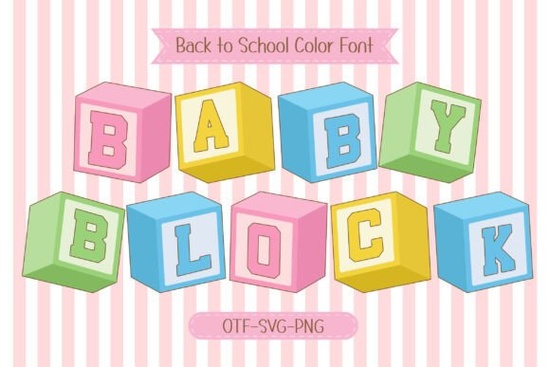
When it comes to adding a playful and adorable touch to your designs, the Baby Block Font is a fantastic choice. Inspired by classic alphabet toy blocks, this font combines a bold sans serif style with soft pastel colors and bright cheerful tones, making it perfect for a variety of creative projects.
Why Choose Baby Block Font?
The Baby Block Font is designed to capture the joy and creativity of childhood. Its unique 4 Color Font feature adds a vibrant and colorful touch to any design, making it stand out. Whether you're working on school-themed projects, kids' learning materials, or DIY crafts, this font brings a fun and modern look that appeals to both children and adults.
Perfect for School-Themed Projects
School-themed projects often require a font that is both engaging and easy to read. The Baby Block Font fits the bill perfectly. Its bold and clear style makes it ideal for creating posters, worksheets, and other educational materials. The soft pastel colors and bright tones add a cheerful and welcoming feel, making learning more enjoyable for kids.
Ideal for Kids' Learning Materials
Designing learning materials for children can be a challenge, but the Baby Block Font makes it easier. The playful and modern look of this font helps to keep young learners engaged. Whether you're creating flashcards, activity books, or educational games, the Baby Block Font adds a cute and educational touch that enhances the overall appeal of your materials.
Great for Classroom Decorations
Classroom decorations play a crucial role in creating an inviting and stimulating learning environment. The Baby Block Font is a great choice for designing banners, wall art, and other decorative elements. Its bold and colorful style helps to create a lively and welcoming atmosphere, making the classroom a more enjoyable place for students.
Perfect for T-Shirt Designs and Children's Merch
If you're looking to create T-shirt designs or other children's merchandise, the Baby Block Font is a top pick. Its playful and modern look makes it perfect for adding a fun and creative touch to your products. Whether you're designing for a school event, a birthday party, or just for everyday wear, this font adds a unique and appealing element that stands out.
DIY Crafts and More
Crafters and hobbyists will love the versatility of the Baby Block Font. It's perfect for a wide range of DIY projects, from scrapbooking and card making to customizing home decor. The bold and colorful style of this font adds a personal and creative touch, making your projects more special and unique.
How to Use Baby Block Font in Your Designs
Incorporating the Baby Block Font into your designs is simple and straightforward. Here are some tips to help you get started:
- Choose the Right Colors: The Baby Block Font comes with soft pastel colors and bright tones. Select colors that complement your design and enhance its overall appeal.
- Experiment with Sizes: Play around with different font sizes to find the best fit for your project. Larger sizes can make a bold statement, while smaller sizes can add a subtle and refined touch.
- Combine with Other Fonts: While the Baby Block Font is versatile, combining it with other fonts can create a more dynamic and interesting design. Consider pairing it with a simple sans serif or a classic serif font for a balanced look.
Practical Checklist for Using Baby Block Font